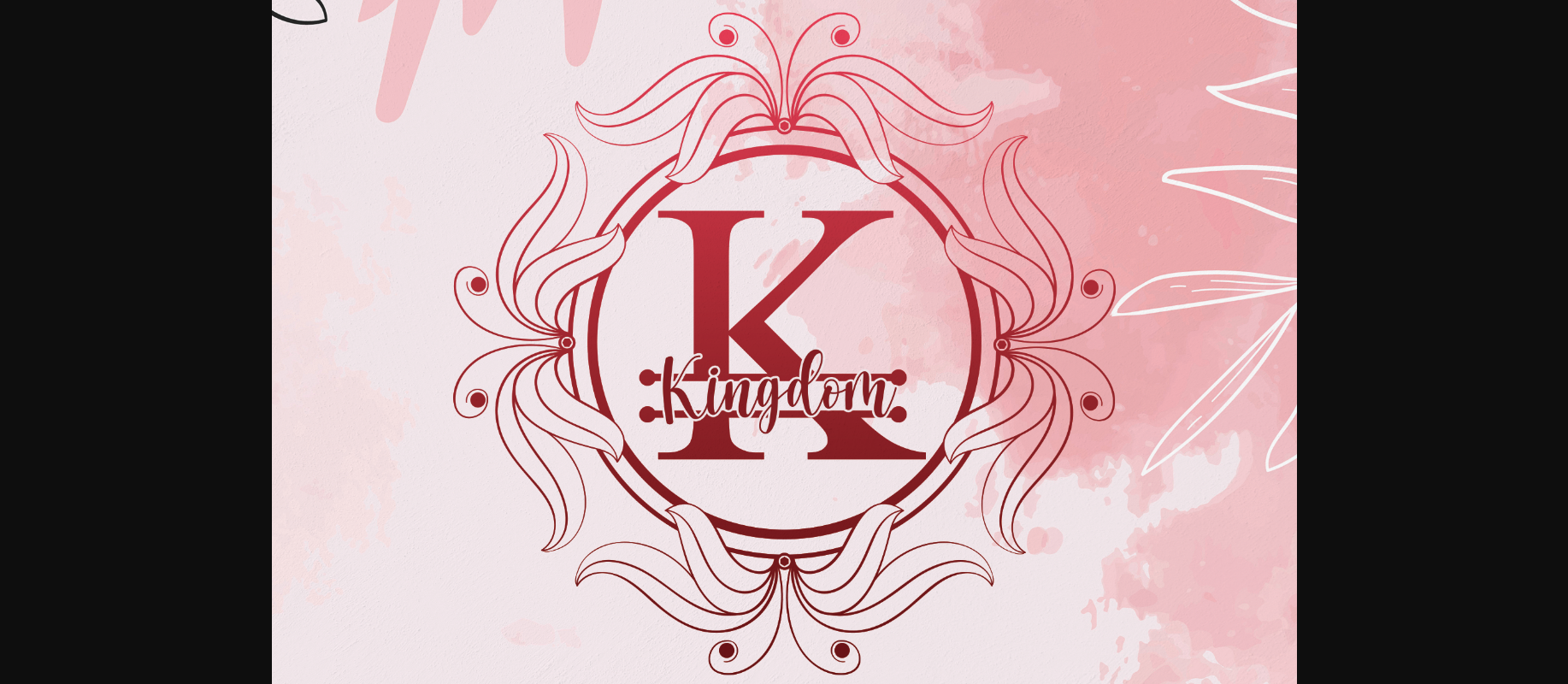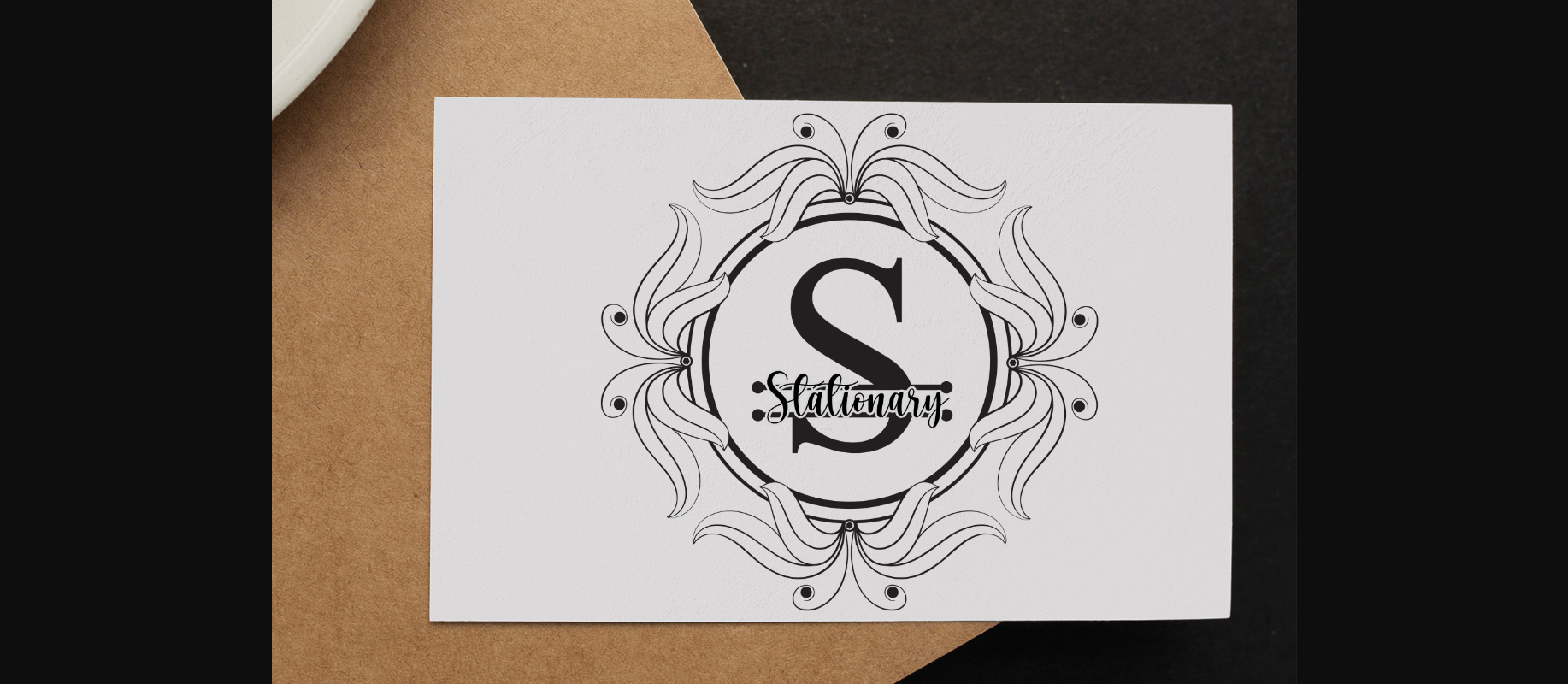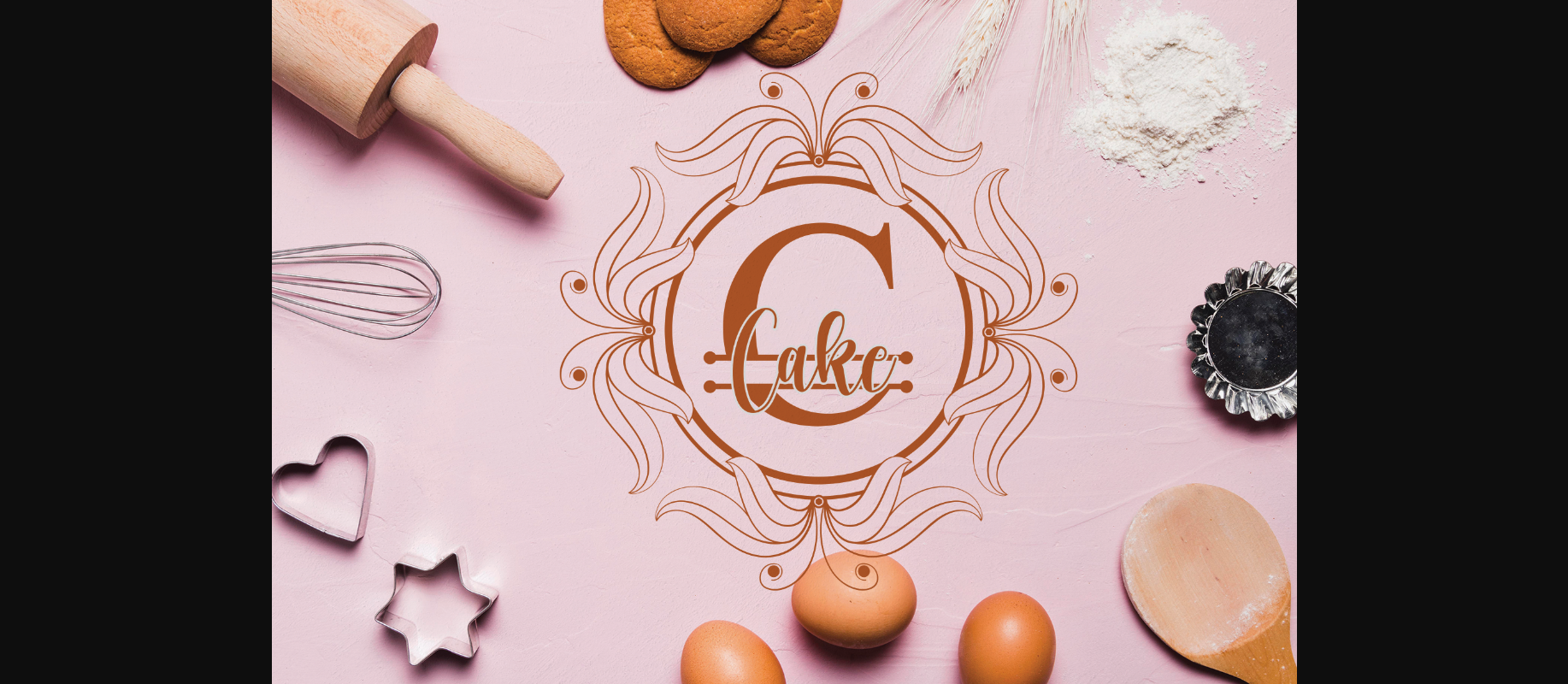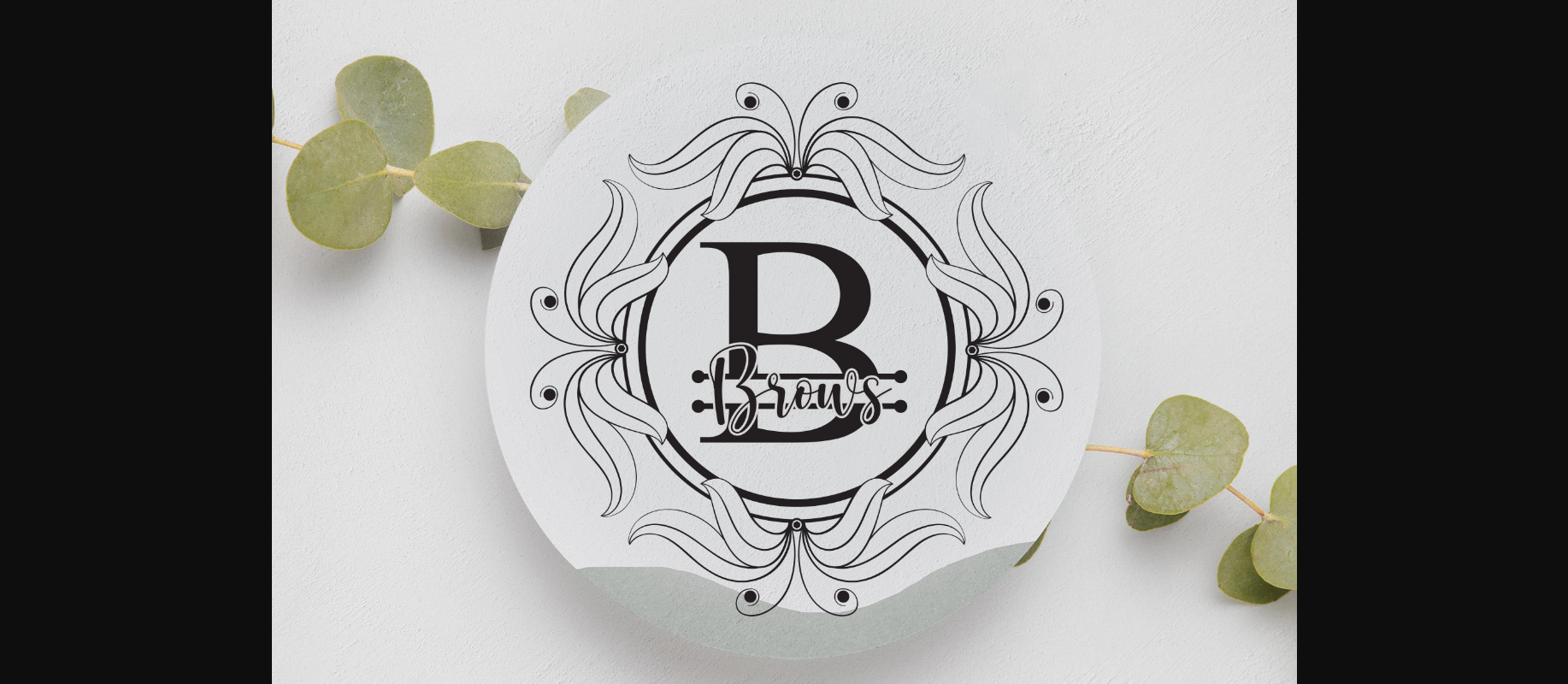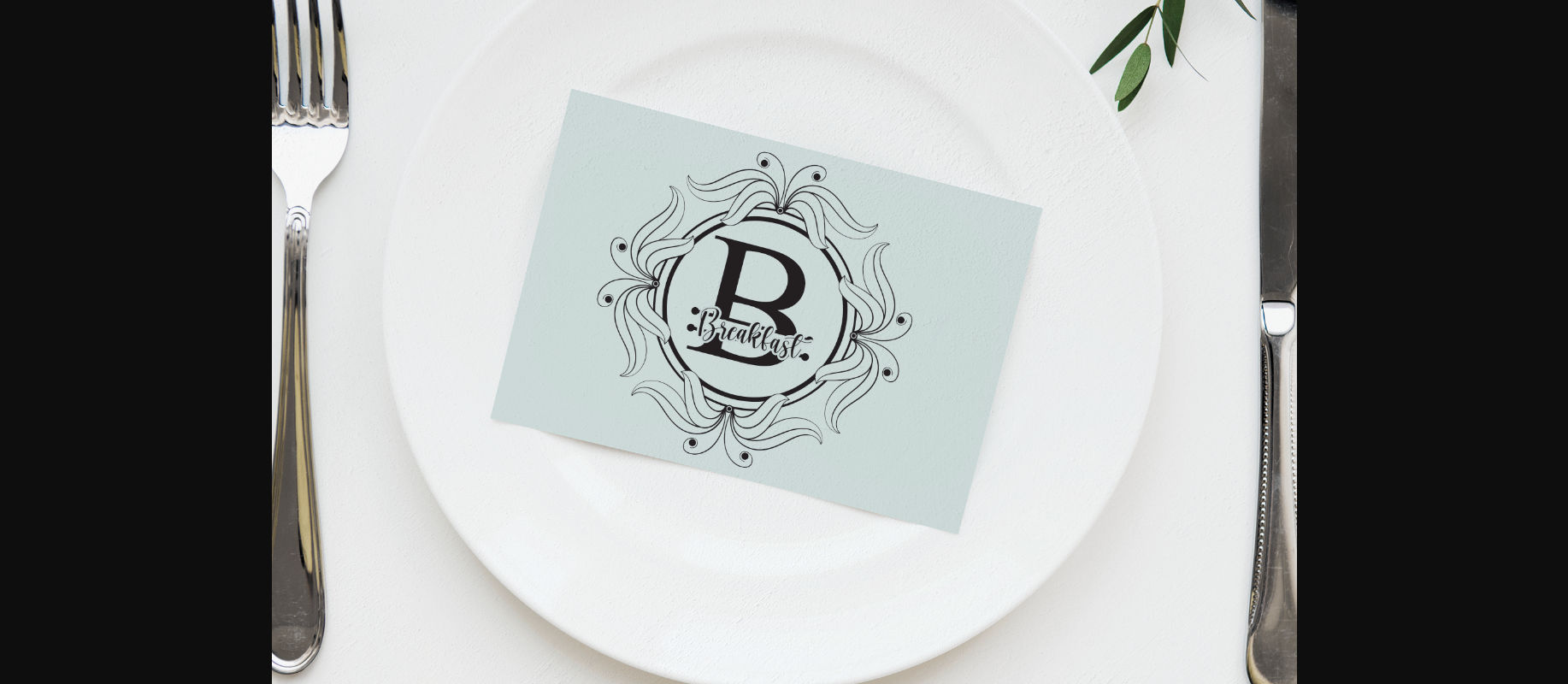
Kingdom is a delicate and highly detailed decorative font. Add this distinct and beautiful looking font to each of your love letters, wedding invitations or favorite design ideas, and you will be astounded by the outcome.